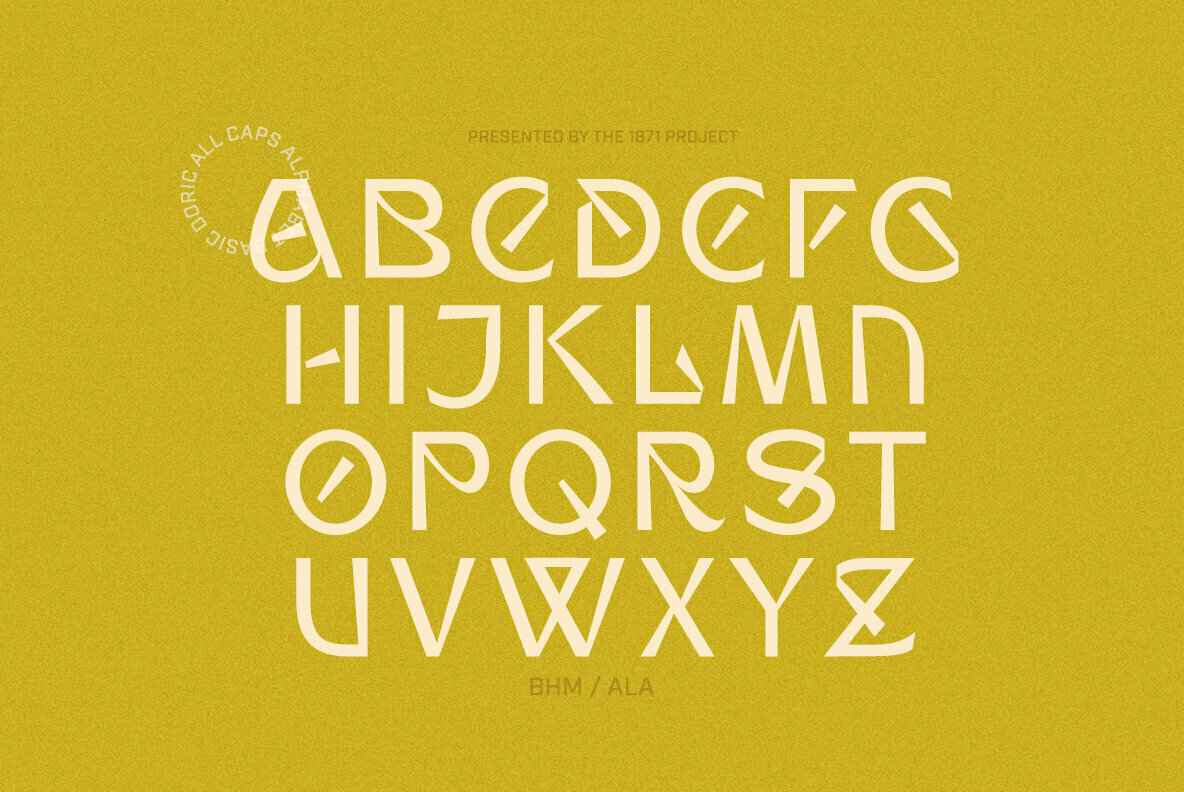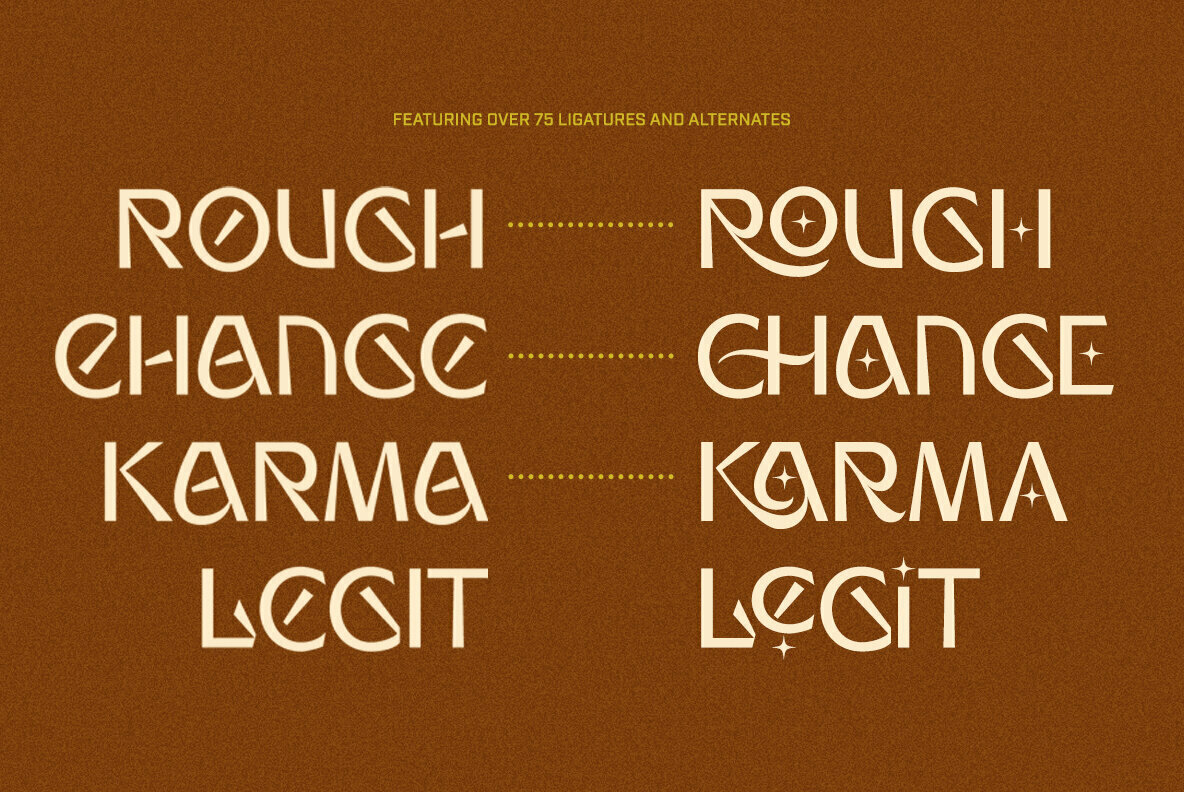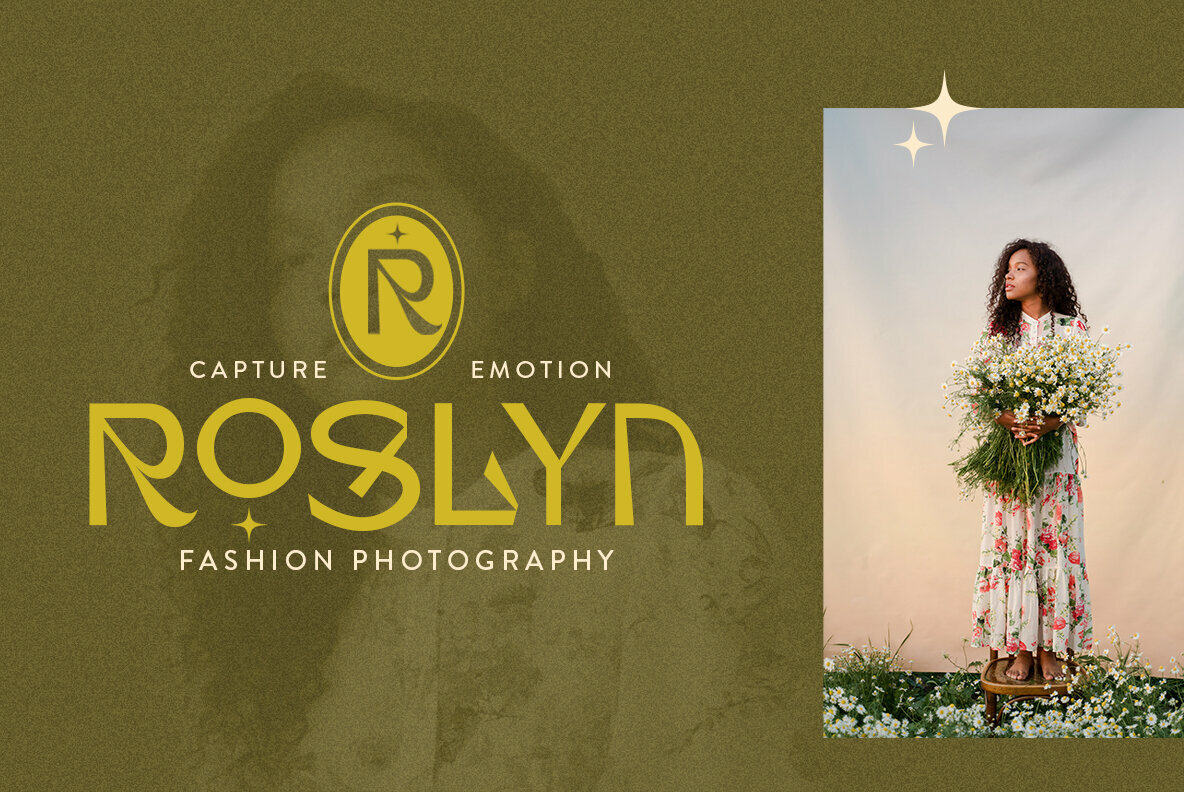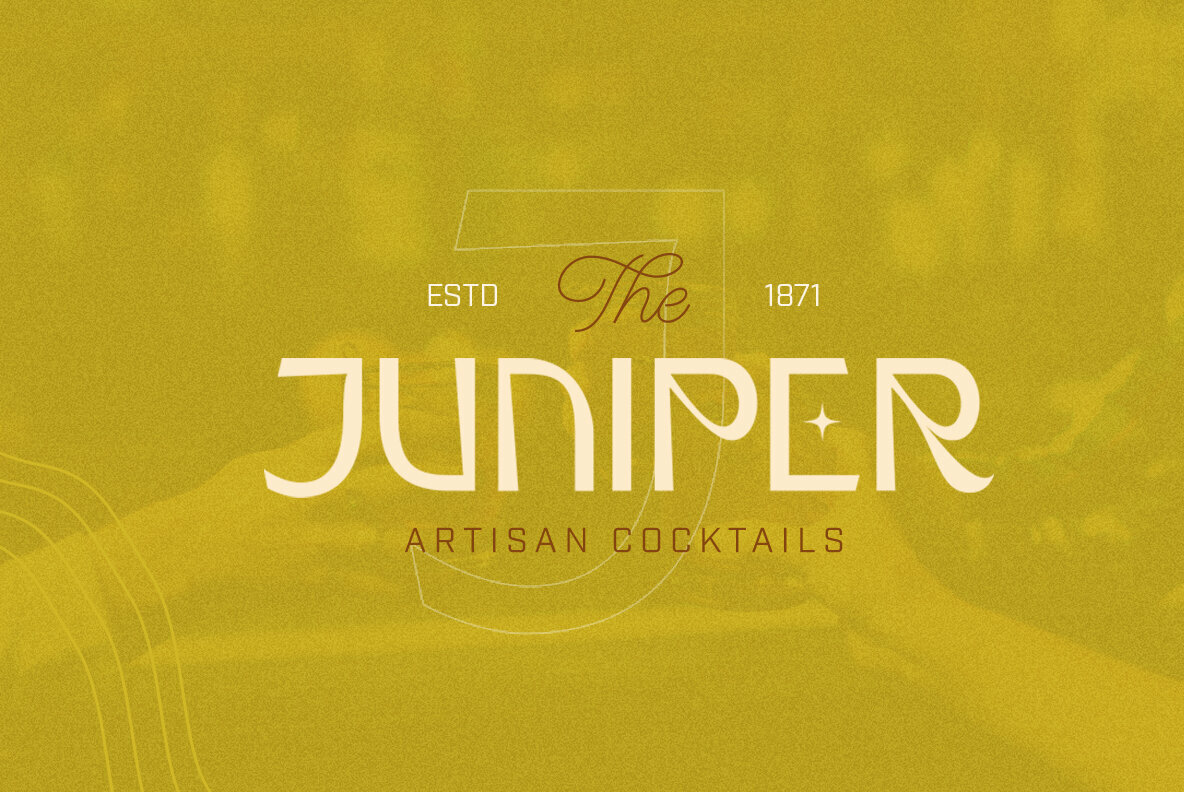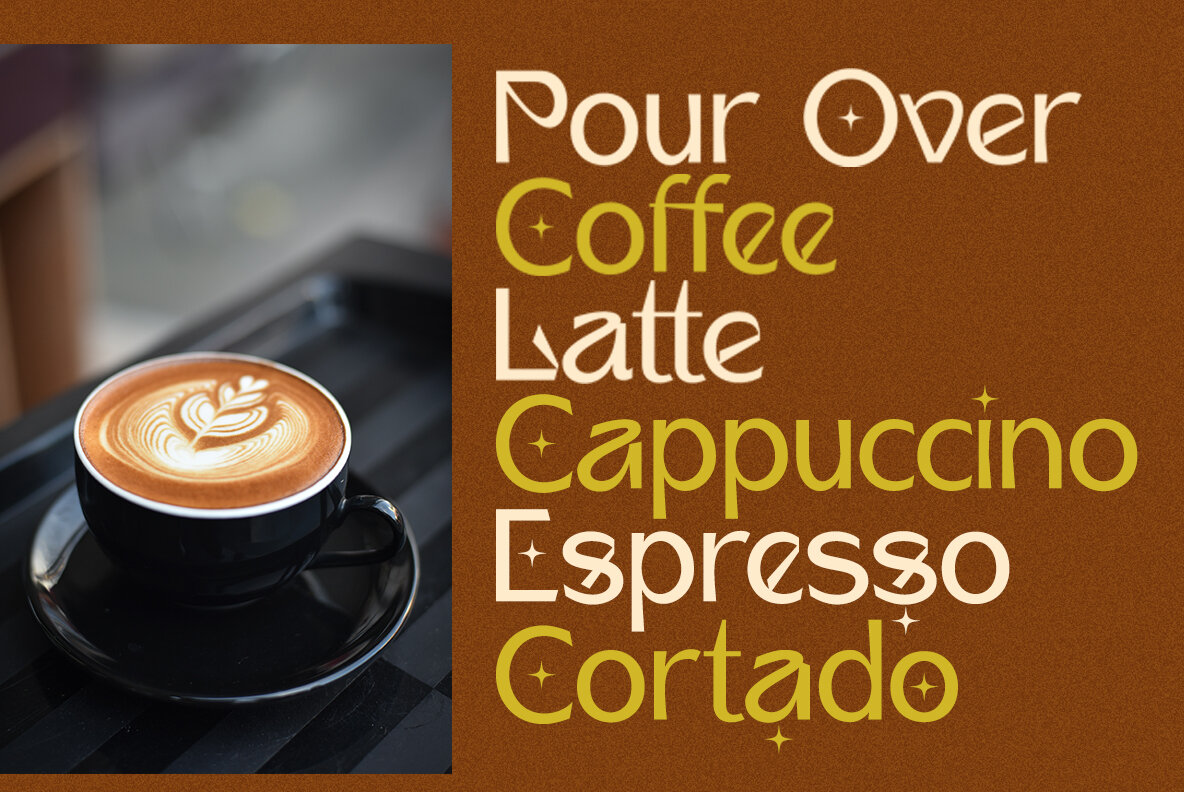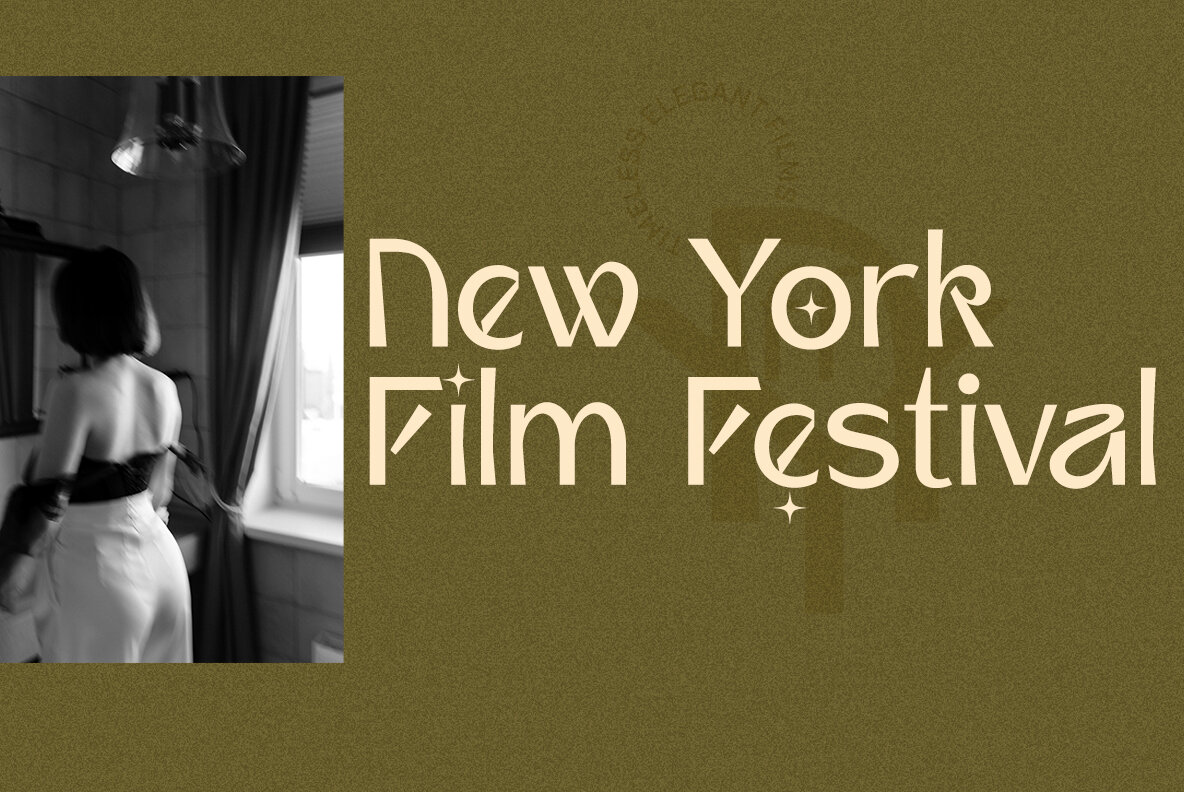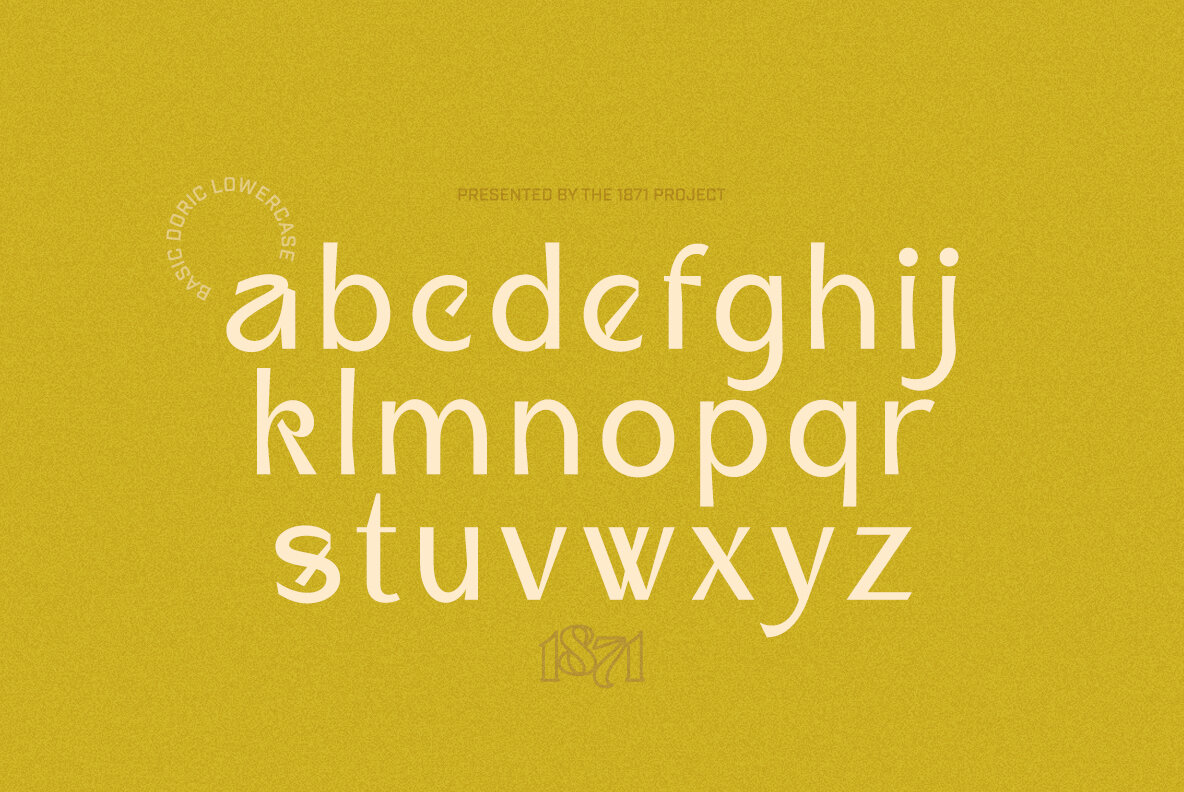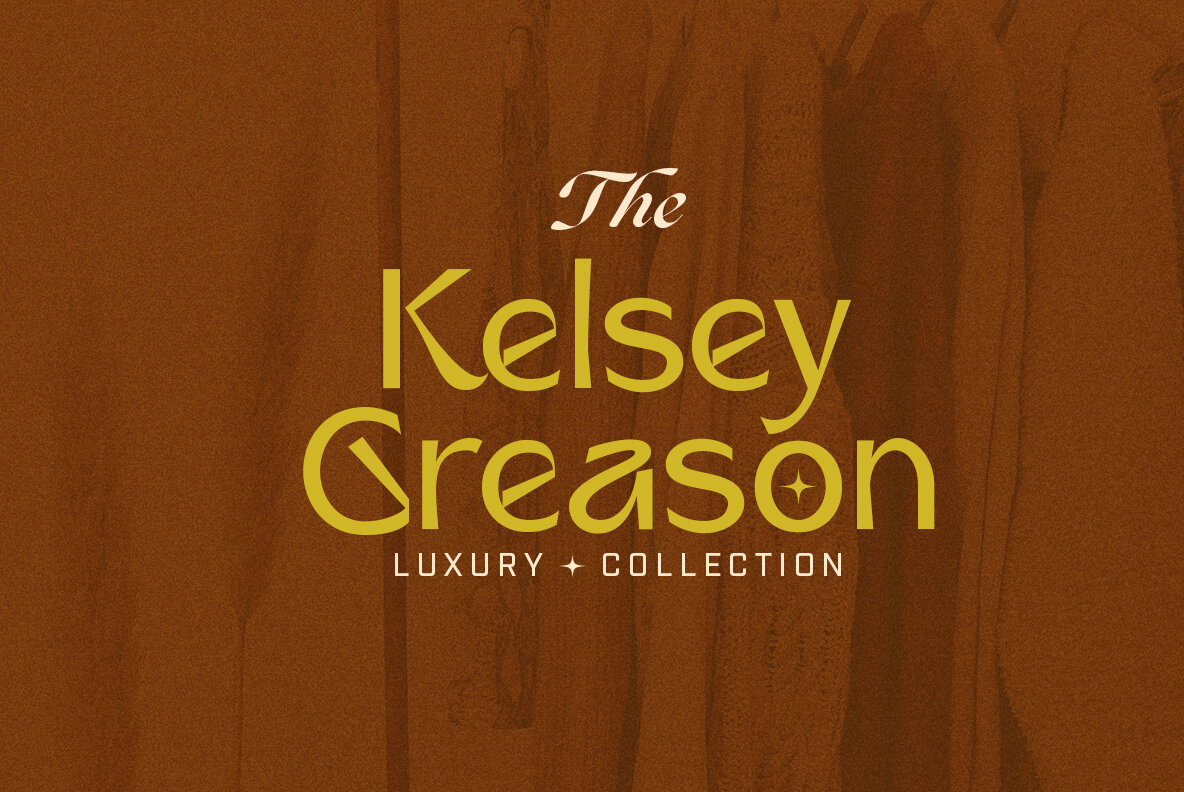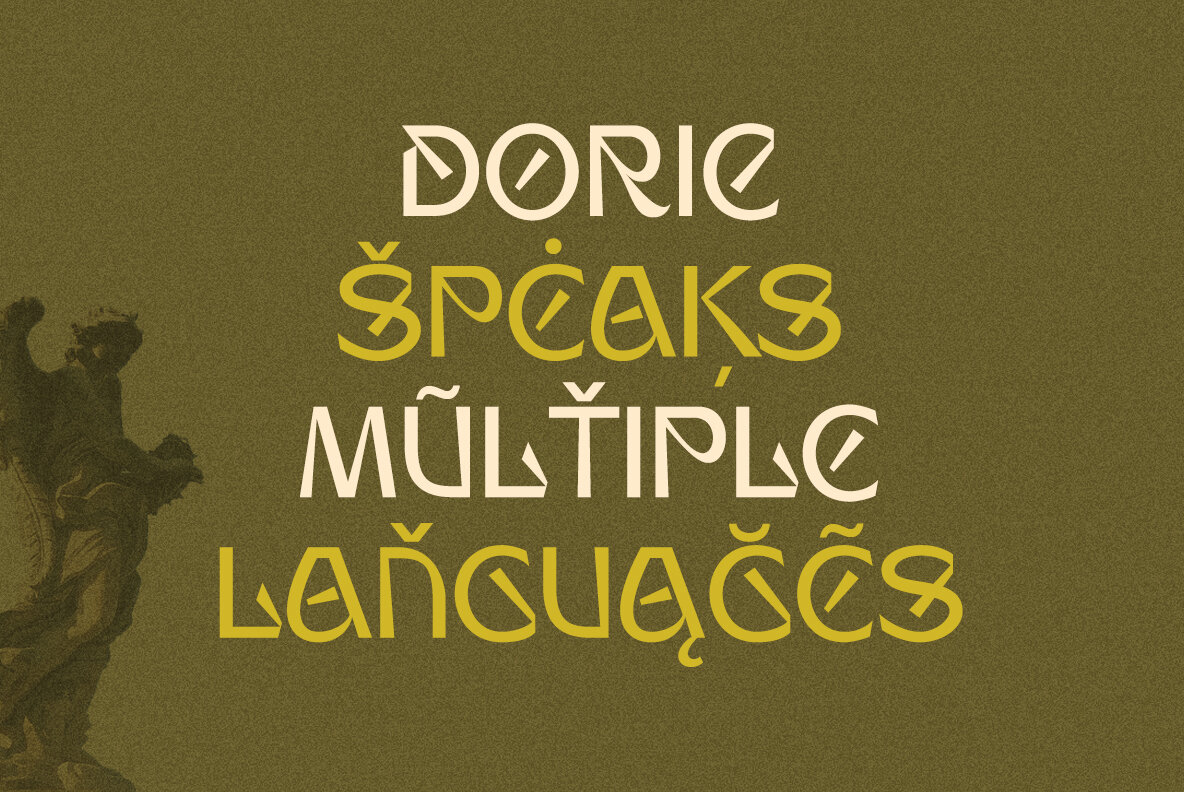
Doric is inspired by Ancient Greek and Roman architecture. Featuring both uppercase and lowercase letters, Doric comes jam packed with over 75 unique ligatures and alternates. Hard lines and sharp corners mesh with smooth shapes, and disruptive angles add a humanist touch. Interesting contrast choices help create a unique staple for your next project.